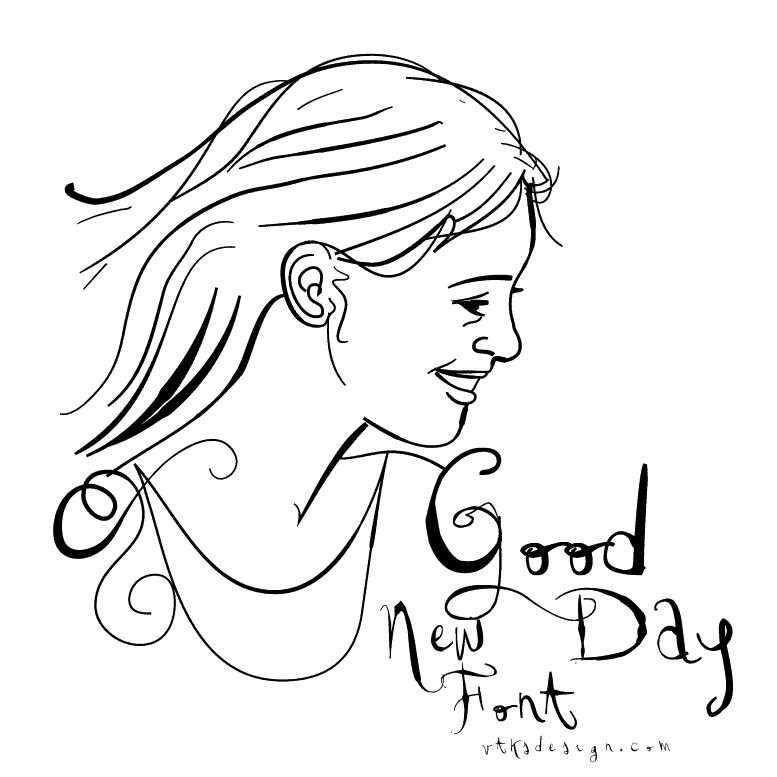
Vtks Good Day, designed by Douglas Vitkauskas, is a free calligraphic script with a loose, theatrical sweep. Fine hairlines and sudden heavy strokes run through tall, narrow letters, with oversized loops and flourishes creating an intentionally unruly silhouette.
Wedding invitations are its most convincing setting, where the long swashes can echo ribbons, floral stems, and other decorative details. Its dramatic movement also suits fashion editorials, boutique packaging, and music posters with a romantic or bohemian subject.